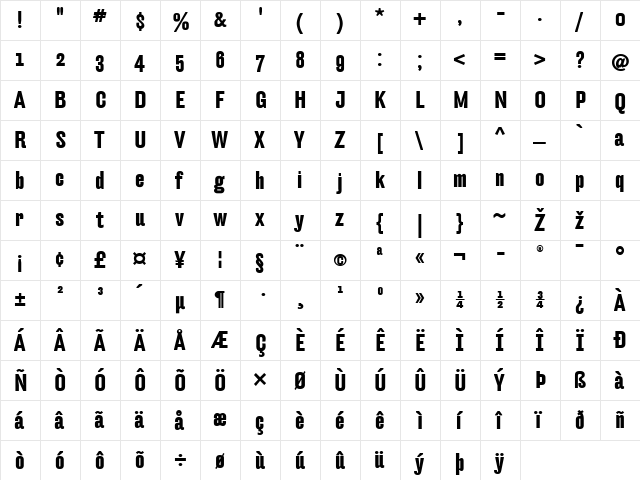
Hydra-Bold Regular
| Designer | Silvio Napoleone |
Design Context for Hydra-Bold Typeface
Hydra-Bold takes a measured approach to typography — its balanced proportions and neutral character make it a reliable workhorse for both digital and print work. Its bold stroke weight gives it real presence on the page.